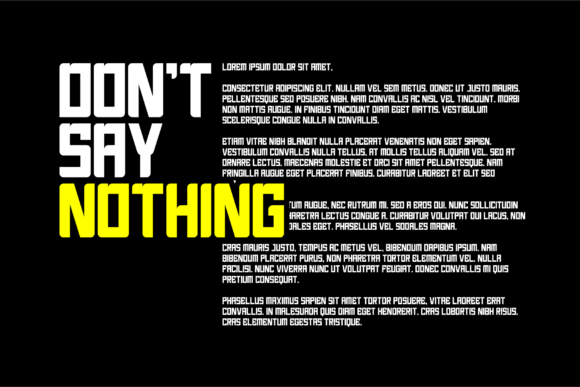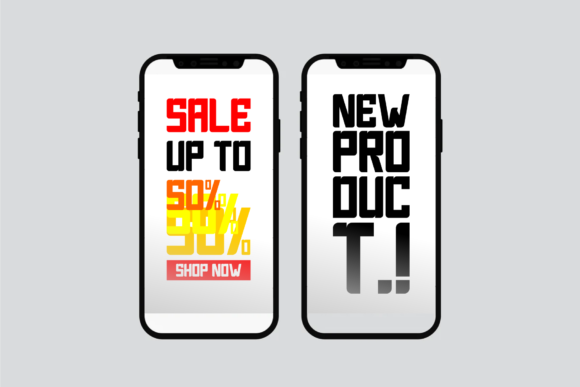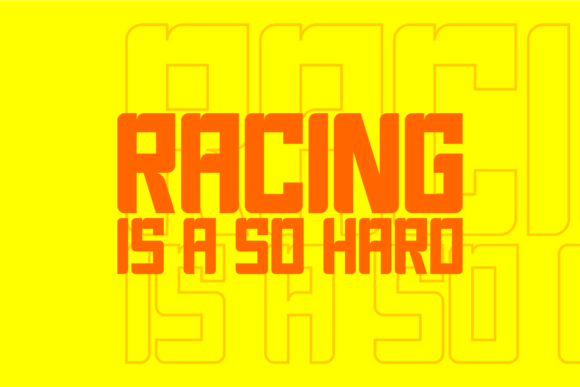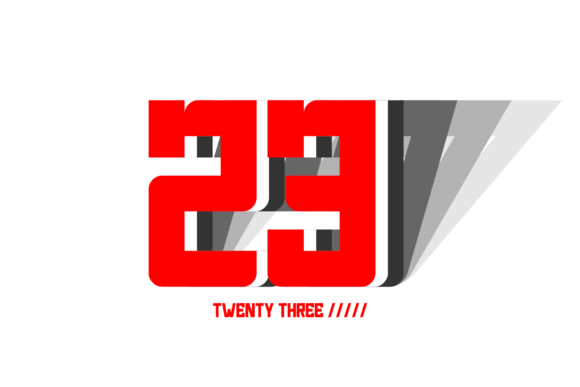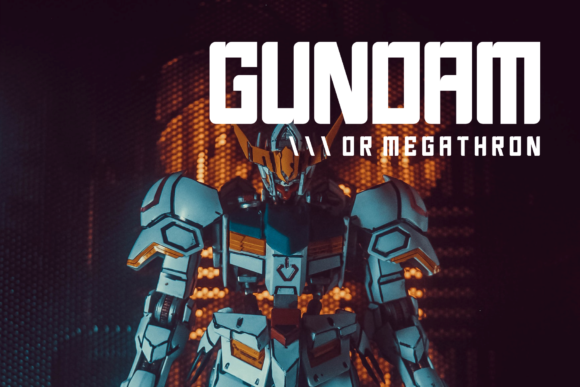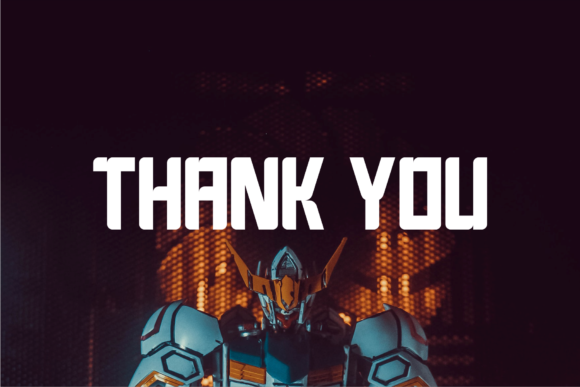
Introducing Comicas Font: The Ultimate Display Font for Bold and Unique Designs
Are you tired of using the same old fonts for your designs? Do you want to add a touch of uniqueness and personality to your web designs, business cards, or craft projects? Look no further than Comicas Font, a cool, bold, and thick lettered display font that’s perfect for making a statement.
What is Comicas Font?
Comicas Font is a display font designed to add a robotic, industrial touch to your designs. With its bold and thick letters, this font is ideal for creating eye-catching headlines, titles, and captions that demand attention. Whether you’re a designer, crafty DIY enthusiast, or simply someone who loves to experiment with typography, Comicas Font is a versatile and fun font that’s sure to inspire.
Key Features of Comicas Font
- Bold and Thick Letters: Comicas Font features bold and thick letters that are perfect for creating statement pieces.
- Robotic and Industrial Feel: The font’s unique design gives it a robotic and industrial feel that’s perfect for adding an edgy touch to your designs.
- Highly Versatile: Comicas Font can be used for a wide range of design projects, from web designs and business cards to craft projects and more.
- Easily Readable: Despite its bold and thick design, Comicas Font is surprisingly easy to read, making it perfect for use in headlines, titles, and captions.
Uses for Comicas Font
Comicas Font is a versatile font that can be used for a wide range of design projects. Here are some ideas to get you started:
- Web Designs: Use Comicas Font to create bold and eye-catching headlines, titles, and captions for your website.
- Business Cards: Add a touch of personality to your business cards with Comicas Font’s unique and industrial design.
- Craft Projects: Use Comicas Font to add a bold and edgy touch to your craft projects, such as handmade cards, scrapbooking, and more.
- Social Media Graphics: Create eye-catching social media graphics with Comicas Font’s bold and attention-grabbing design.
Tips for Using Comicas Font
Here are some tips for getting the most out of Comicas Font:
- Use it Sparingly: Comicas Font is a bold font, so use it sparingly to avoid overwhelming your design.
- Pair it with Other Fonts: Pair Comicas Font with other fonts to create a unique and interesting contrast.
- Experiment with Colors: Experiment with different colors to find the perfect combination that brings out the best in Comicas Font.
Comicas Font is a cool, bold, and thick lettered display font that’s perfect for designers, crafty DIY enthusiasts, and anyone looking to add a unique touch to their designs. With its robotic and industrial feel, Comicas Font is sure to make a statement in any design project. So why not give it a try and see what amazing designs you can create?
- Comicas Font is a cool, bold, and thick lettered display font designed for creating eye-catching headlines, titles, and captions.